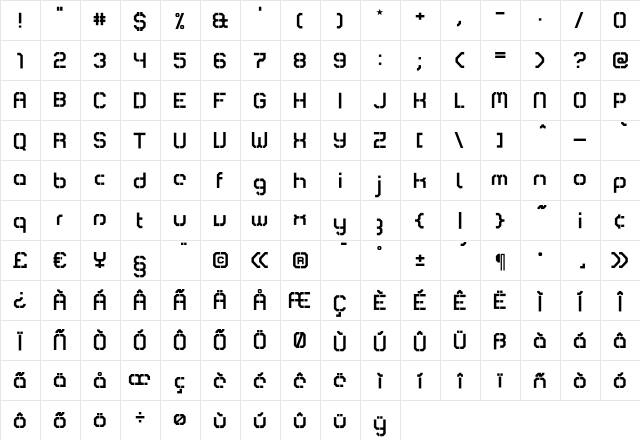
Comsat Navy-Box Font Preview
Comsat Navy-Box
Comsat Navy-Box Font Details
| Style | Navy-Box |
Design Context for Comsat Typeface
Comsat offers clean, dependable letterforms without strong stylistic allegiance, making it a practical choice for designers who need flexibility.